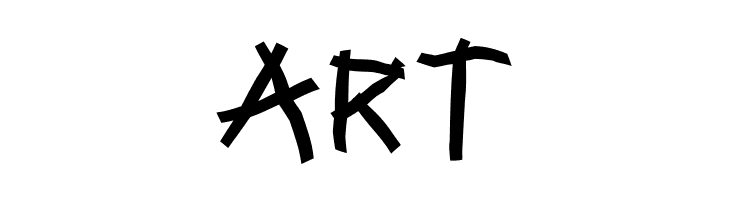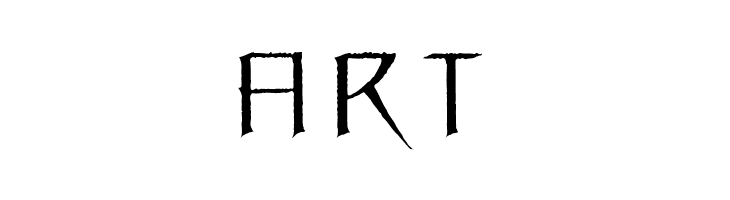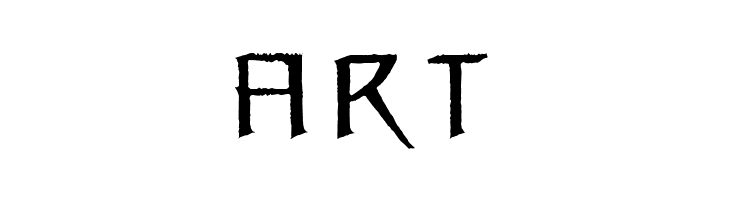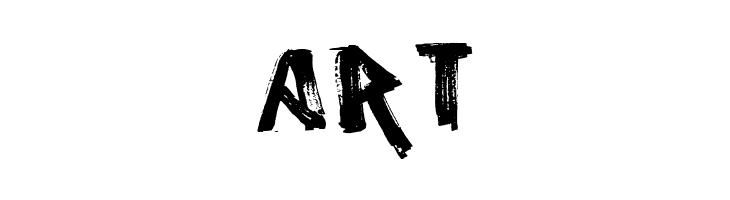
A playful, handwritten font with bold, slanted strokes and a lively appearance.
A modern, edgy font with sharp, angular strokes and a bold appearance.
A bold, edgy font with a distressed, hand-drawn appearance.
A bold, rugged font with a wild, brush-stroke appearance.